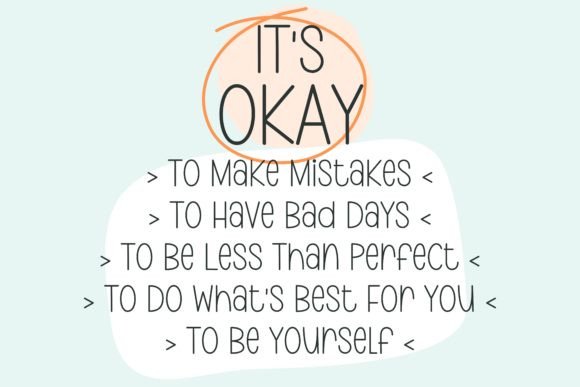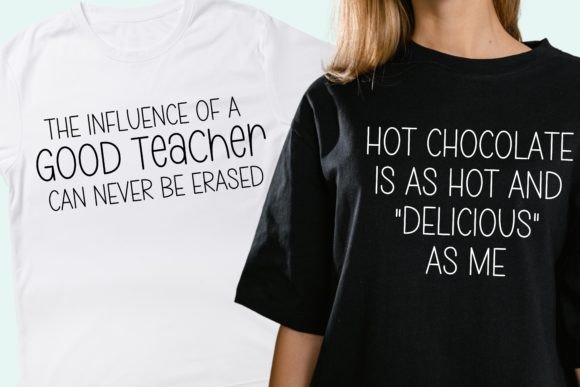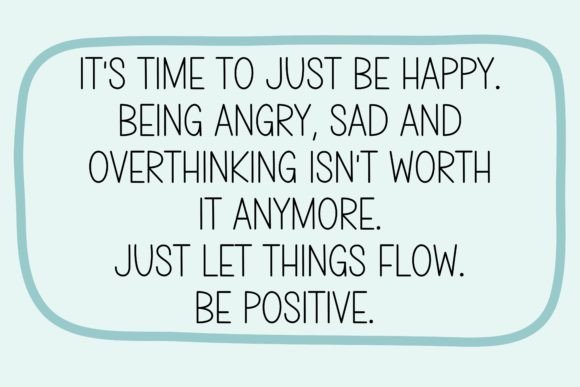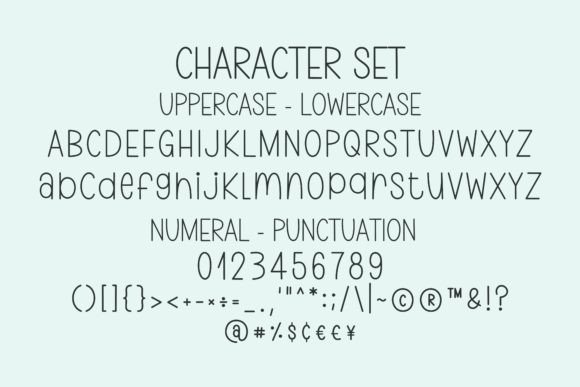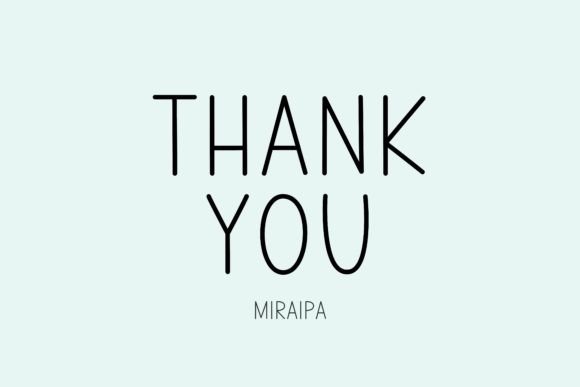
Introducing Friendly Font: The Perfect Addition to Your Design Arsenal
Are you tired of using the same old fonts in your designs? Look no further! Friendly Font is here to bring a touch of warmth and personality to your projects. Designed in a classic and friendly handwritten sans serif font style, Friendly Font is perfect for crafters, designers, and DIY enthusiasts looking to add a personal touch to their creations.
What Makes Friendly Font So Special?
Friendly Font is more than just a font – it’s a way to add a dash of personality to your designs. Its classic and friendly handwritten sans serif style makes it perfect for a wide range of projects, from fun and playful to elegant and sophisticated. Whether you’re working on a Easter, back to school, wedding, or party decoration, Friendly Font is the perfect choice.
Endless Possibilities with Friendly Font
The versatility of Friendly Font is one of its most appealing features. It’s perfect for a wide range of projects, including:
• Easter and Spring-themed designs
• Back to school and educational materials
• Wedding invitations and decorations
• Party decorations and invitations
• Fall and Halloween-themed designs
• Christmas and holiday-themed designs
• Posters and flyers
• Blogs and social media posts
• Clothing and apparel designs
• Child-related designs and products
• Greeting cards and invitations
Why Choose Friendly Font?
So why choose Friendly Font over other fonts? Here are just a few reasons:
• Unique and Personal Touch: Friendly Font adds a unique and personal touch to your designs, setting them apart from the rest.
• Easy to Read: The sans serif style of Friendly Font makes it easy to read, even at small sizes.
• Versatile: Friendly Font is perfect for a wide range of projects, from fun and playful to elegant and sophisticated.
• DIY Friendly: Friendly Font is perfect for DIY enthusiasts and crafters looking to add a personal touch to their creations.
Tips and Tricks for Using Friendly Font
Here are a few tips and tricks for getting the most out of Friendly Font:
• Experiment with Different Sizes: Friendly Font looks great at a variety of sizes, from small and delicate to large and bold.
• Pair with Other Fonts: Friendly Font pairs well with other fonts, such as serif fonts and script fonts.
• Use for Headings and Body Text: Friendly Font is perfect for use as both headings and body text.
In conclusion, Friendly Font is a versatile and unique font that’s perfect for designers, crafters, and DIY enthusiasts looking to add a personal touch to their creations. With its classic and friendly handwritten sans serif style, Friendly Font is perfect for a wide range of projects. So why wait? Download Friendly Font today and start creating!